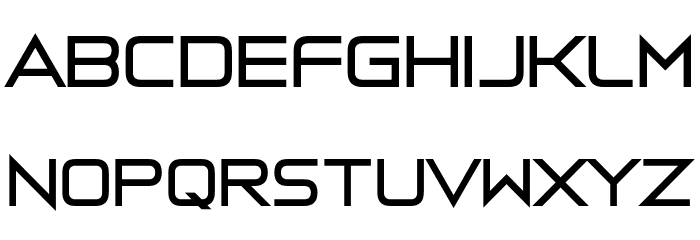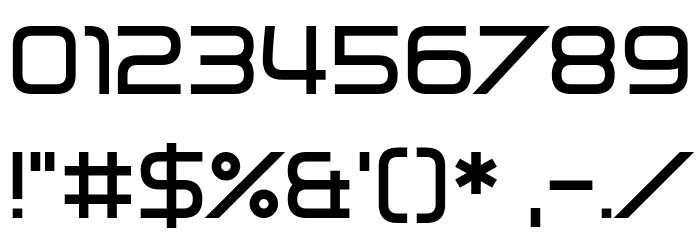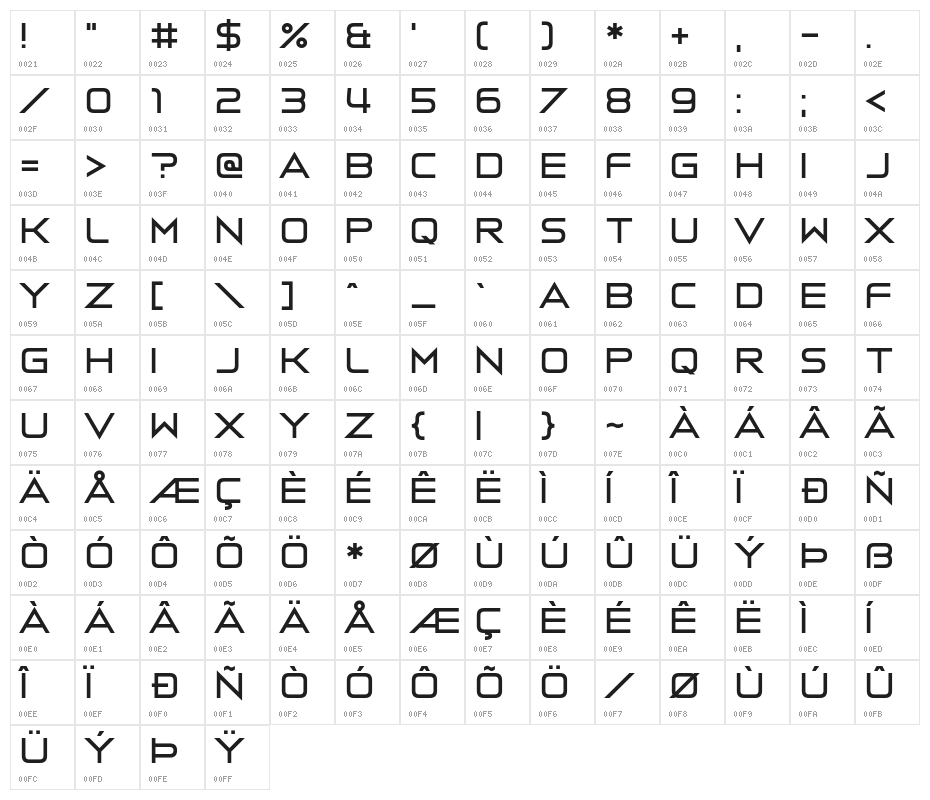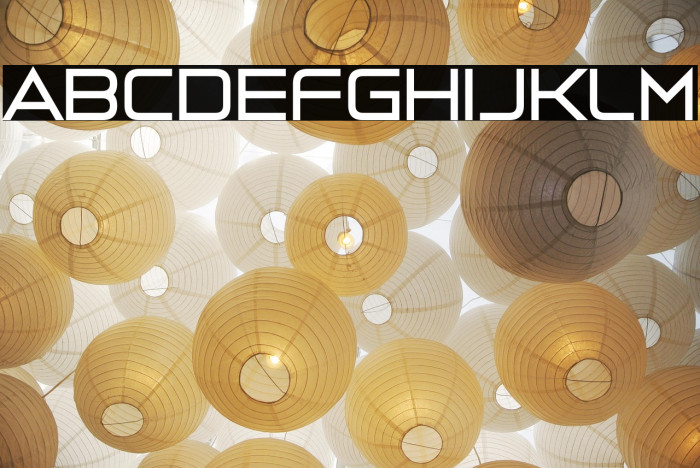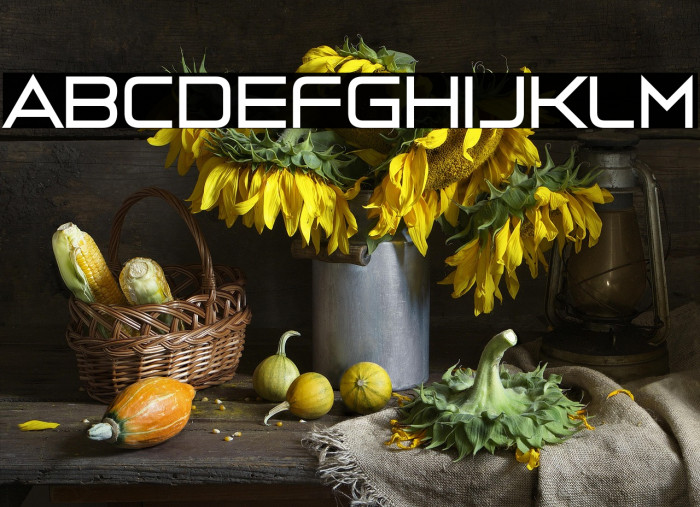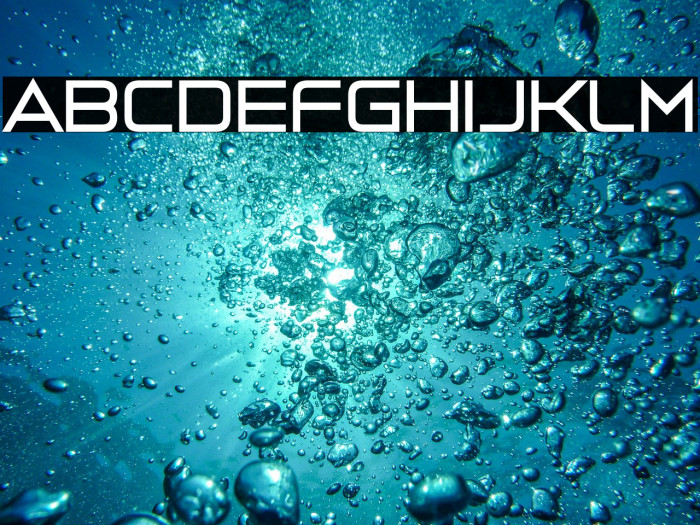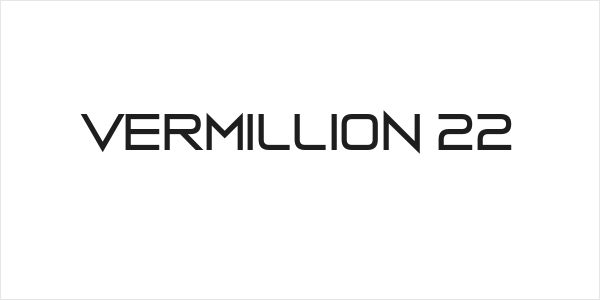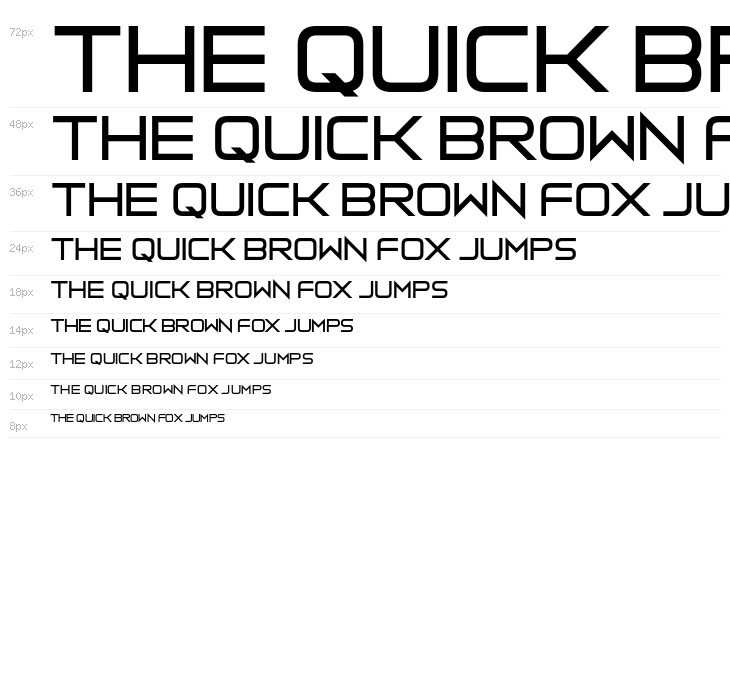
Vermillion 22 Font
This font features a modern and geometric design with clean, straight lines and a consistent stroke width. The characters are well-proportioned, offering a futuristic and sleek appearance. The uppercase letters are bold and assertive, while the lowercase letters maintain a similar structure, ensuring uniformity across the typeface. The numerals are clear and easily distinguishable, making them suitable for digital displays. Special characters are designed to match the overall aesthetic, providing a cohesive look. This font is ideal for projects that require a contemporary and professional feel.
A modern, geometric font with clean lines and consistent stroke width.
- Font: Vermillion 22
- Proposed Projects: Ideal for technology branding, digital interfaces, and modern advertising campaigns.
- Category: Sans-Serif
- Use Case: Headlines, Logos, Digital Displays